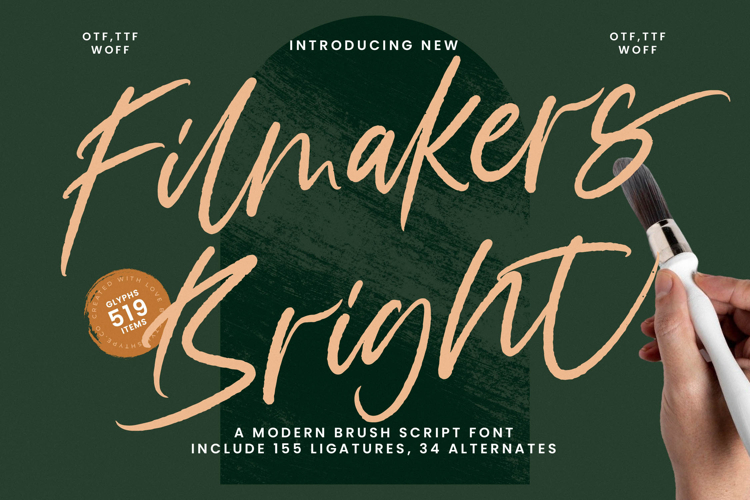
Filmakers Bright - Modern Brush Script Font
Unleash unparalleled creativity with every stroke. Font Filmakers Bright - Modern Brush Script Font Script instantly captivates with its dynamic, handcrafted elegance. This modern brush script features an expressive flow and a distinctly energetic aesthetic, perfect for projects demanding both warmth and contemporary flair. Its organic yet polished appearance ensures your design stands out, radiating a friendly sophistication that is truly unforgettable.
Elevate your typography with exceptional depth and character. Boasting an impressive collection of 519 glyphs, Font Filmakers Bright - Modern Brush Script Font Script offers unparalleled design flexibility. With 155 unique ligatures and 34 alternates, designers can achieve remarkable authenticity and bespoke customization, crafting truly unique wordforms that mimic genuine hand lettering. This rich feature set ensures seamless integration and a polished finish across all creative endeavors.
Expand your reach across borders with confidence. With its extensive multilingual support, Font Filmakers Bright - Modern Brush Script Font Script adapts seamlessly across global markets, making it incredibly versatile for international projects. This crucial capability ensures your message resonates universally, preserving the font’s distinctive charm regardless of language. It’s a truly global asset for any designer.
Transform your vision into compelling visual narratives. Font Filmakers Bright - Modern Brush Script Font Script is perfect for luxury branding, sophisticated packaging, elegant editorial design, impactful social media graphics, and memorable wedding invitations. Its vibrant personality makes it ideal for crafting striking headlines, engaging advertisements, and any application where impactful typography and a touch of artistic authenticity are paramount.